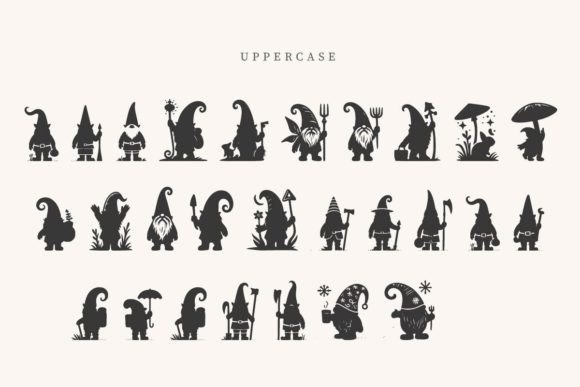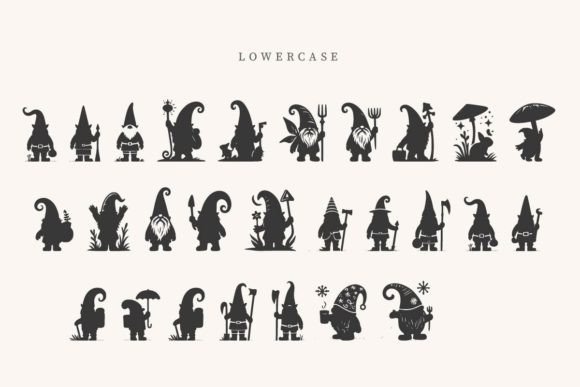
Gnomes Font: A Whimsical Dingbat Font for Creative Projects
Are you a designer, crafter, or DIY enthusiast looking for a unique and playful font to add a touch of magic to your projects? Look no further than Gnomes Font, a cool dingbat font that features adorable glyph illustrations of gnome silhouettes. In this article, we’ll explore the features and uses of Gnomes Font, and how it can elevate your creative projects.
What is Gnomes Font?
Gnomes Font is a dingbat font that consists of intricately designed glyphs featuring silhouettes of gnomes in various poses and activities. The font is perfect for adding a whimsical and fantastical touch to your designs, making it ideal for a wide range of creative projects. Whether you’re working on a craft, sticker, decoration, journal, logo, planner, t-shirt, invitation, or greeting card, Gnomes Font is sure to delight.
Key Features of Gnomes Font
- Unique Glyph Illustrations: Gnomes Font features a range of glyph illustrations showcasing gnomes in different scenarios, from gardening and fishing to reading and relaxing.
- Scalable Design: The font is designed to be scalable, ensuring that it looks great in various sizes and resolutions.
- Versatile: The font can be used for a wide range of creative projects, from digital designs to print materials.
Uses of Gnomes Font
Gnomes Font is a versatile font that can be used for various creative projects, including:
- Crafts: Add a touch of whimsy to your craft projects, such as scrapbooking, card making, and paper crafting.
- Stickers: Create custom stickers featuring adorable gnome illustrations.
- Decorations: Use Gnomes Font to create decorative items, such as wall art, signs, and banners.
- Journals: Add a personal touch to your journal or planner with custom gnome illustrations.
- Logos: Create a unique and memorable logo for your business or brand featuring gnome silhouettes.
- Planners: Add a touch of fun and personality to your planner or calendar.
- T-Shirts: Design custom t-shirts featuring gnome illustrations.
- Invitations: Create whimsical invitations for parties, events, or special occasions.
- Greeting Cards: Design custom greeting cards featuring gnome illustrations.
Tips for Using Gnomes Font
Here are some tips for getting the most out of Gnomes Font:
- Experiment with Different Sizes: Try out different font sizes to see how the glyph illustrations look in various contexts.
- Combine with Other Fonts: Pair Gnomes Font with other fonts to create interesting and unique typography.
- Use in Digital Designs: Use Gnomes Font in digital designs, such as social media graphics, blog posts, and email newsletters.
- Color It In: Experiment with different colors and textures to add depth and interest to your designs.
Gnomes Font is a unique and versatile dingbat font that is perfect for designers, crafters, and DIY enthusiasts looking to add a touch of whimsy to their creative projects. With its range of glyph illustrations, scalable design, and ease of use, Gnomes Font is sure to delight. Whether you’re working on a craft, sticker, decoration, journal, logo, planner, t-shirt, invitation, or greeting card, Gnomes Font is the perfect choice. So why not give it a try and see how it can elevate your creative projects?